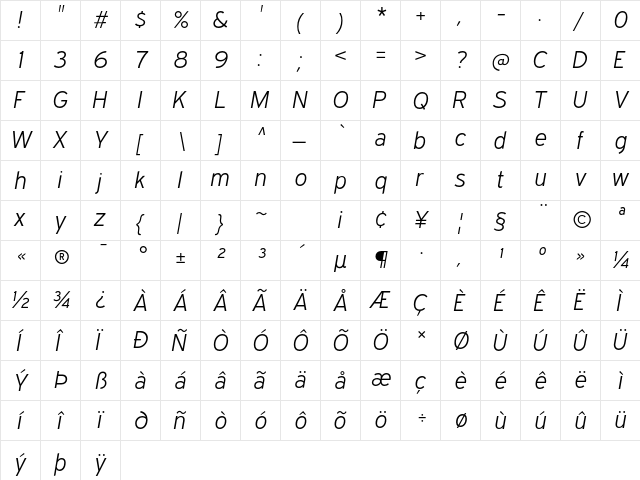
Expressway Lt Italic Font Preview
Design Context for Expressway Lt Typeface
Expressway Lt offers clean, dependable letterforms without strong stylistic allegiance, making it a practical choice for designers who need flexibility. The slanted form adds forward momentum and visual energy. Its slender proportions lend an understated elegance to any composition.
Pro Tip: Try Expressway Lt for annotation and caption copy alongside an upright companion — the contrast in angle creates a dynamic but ordered typographic system.